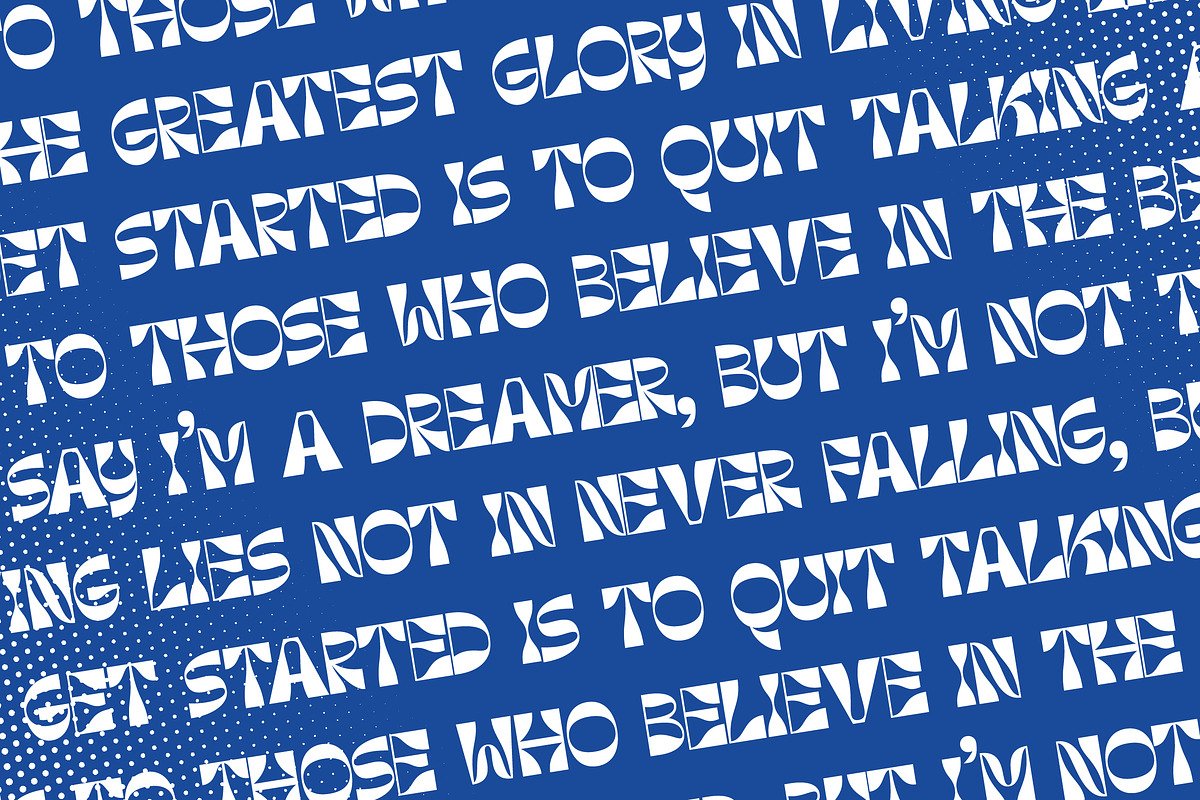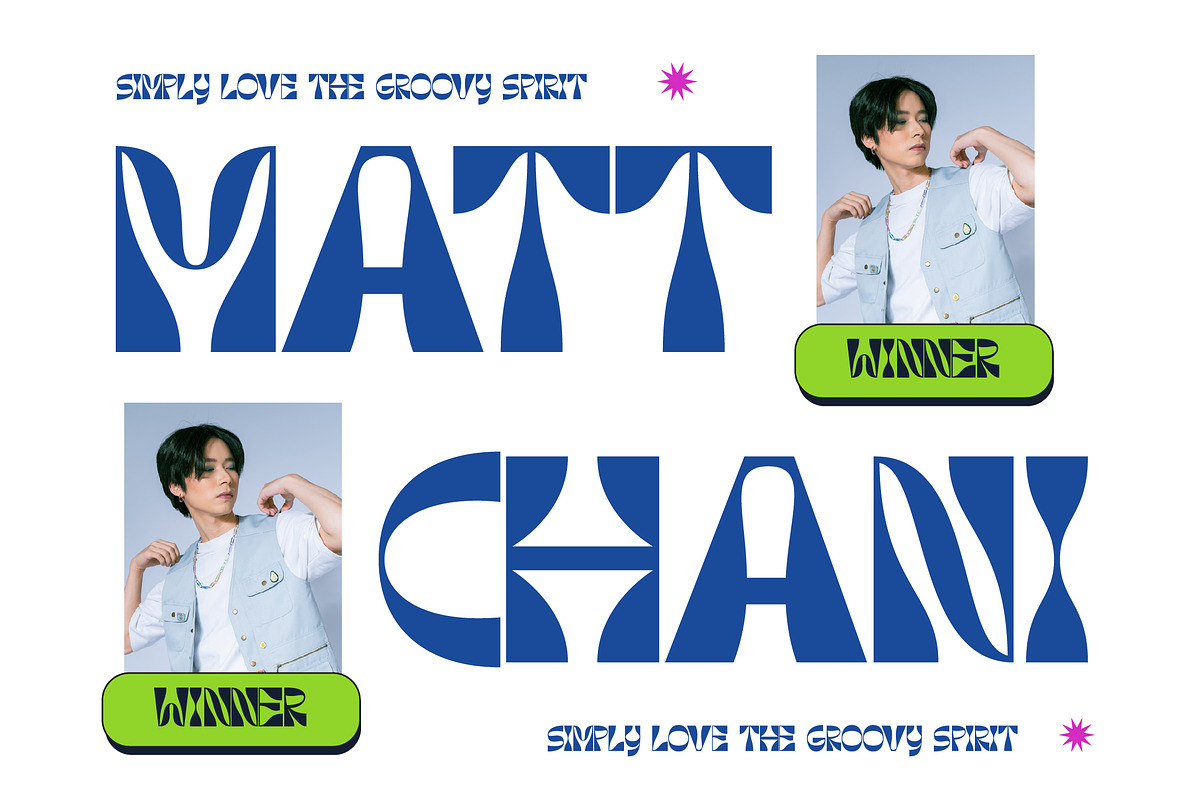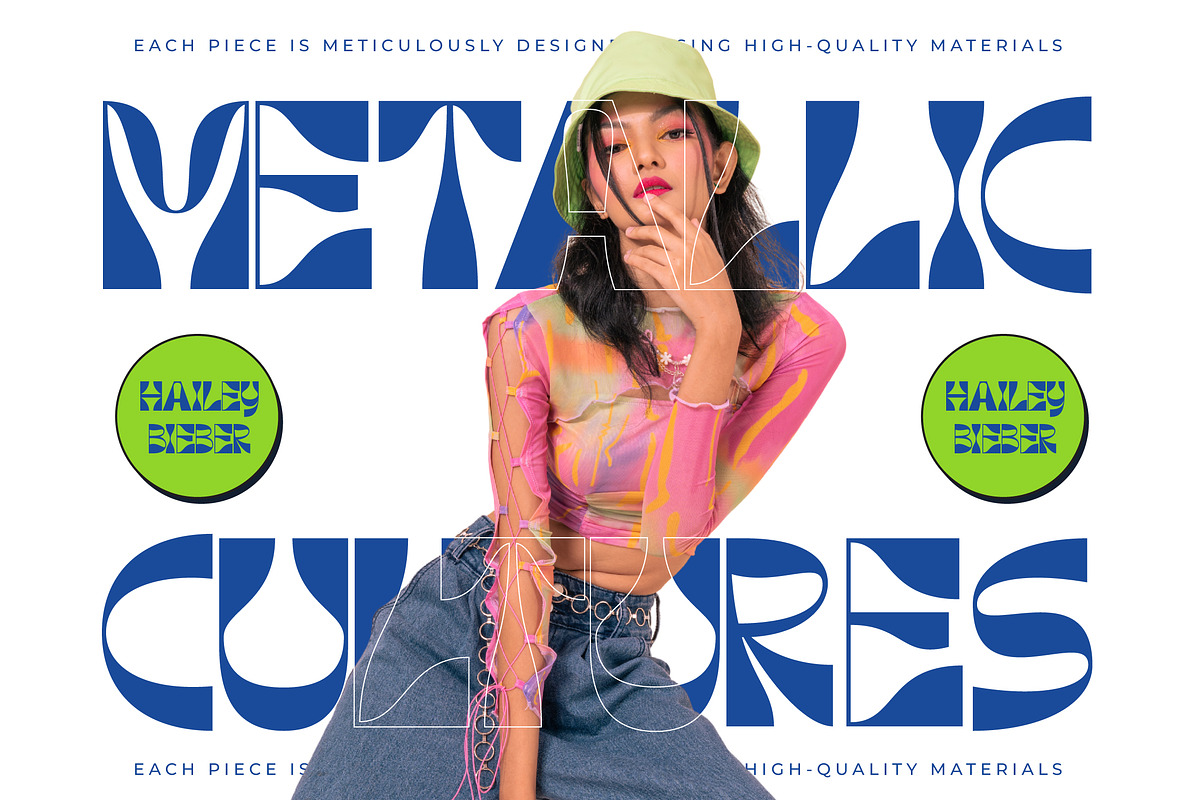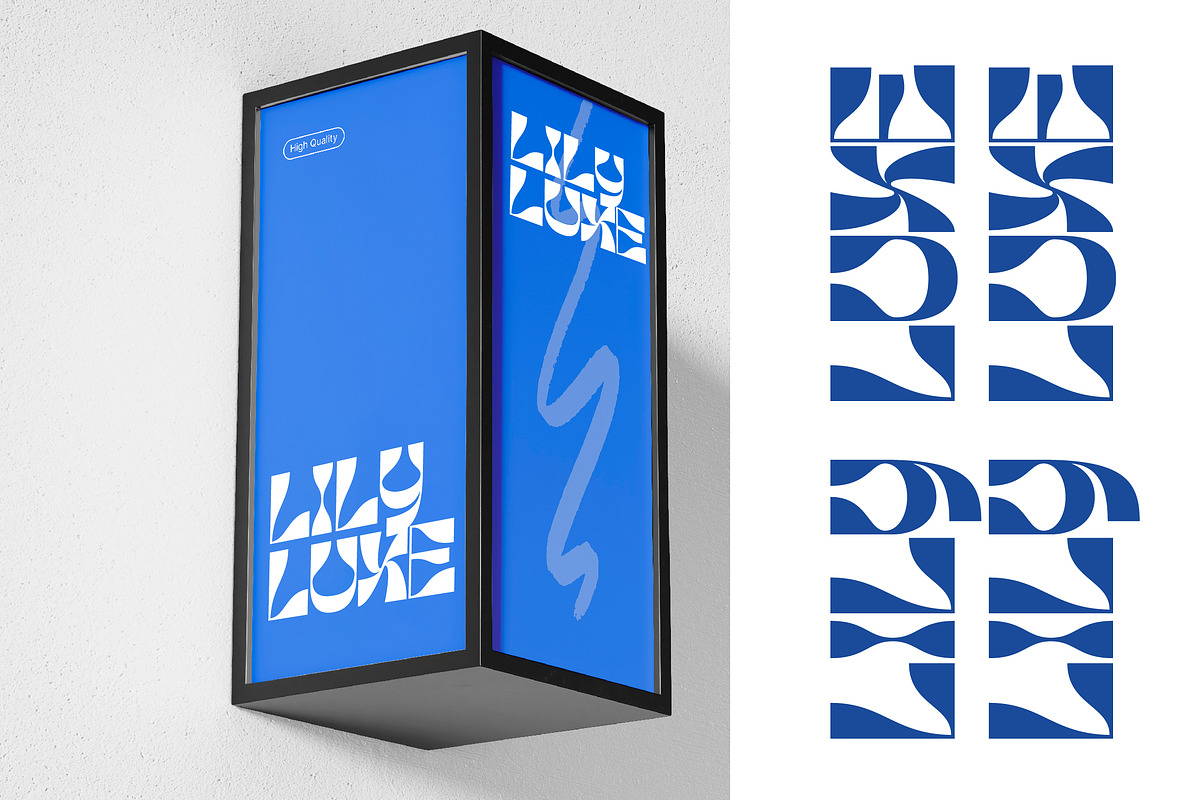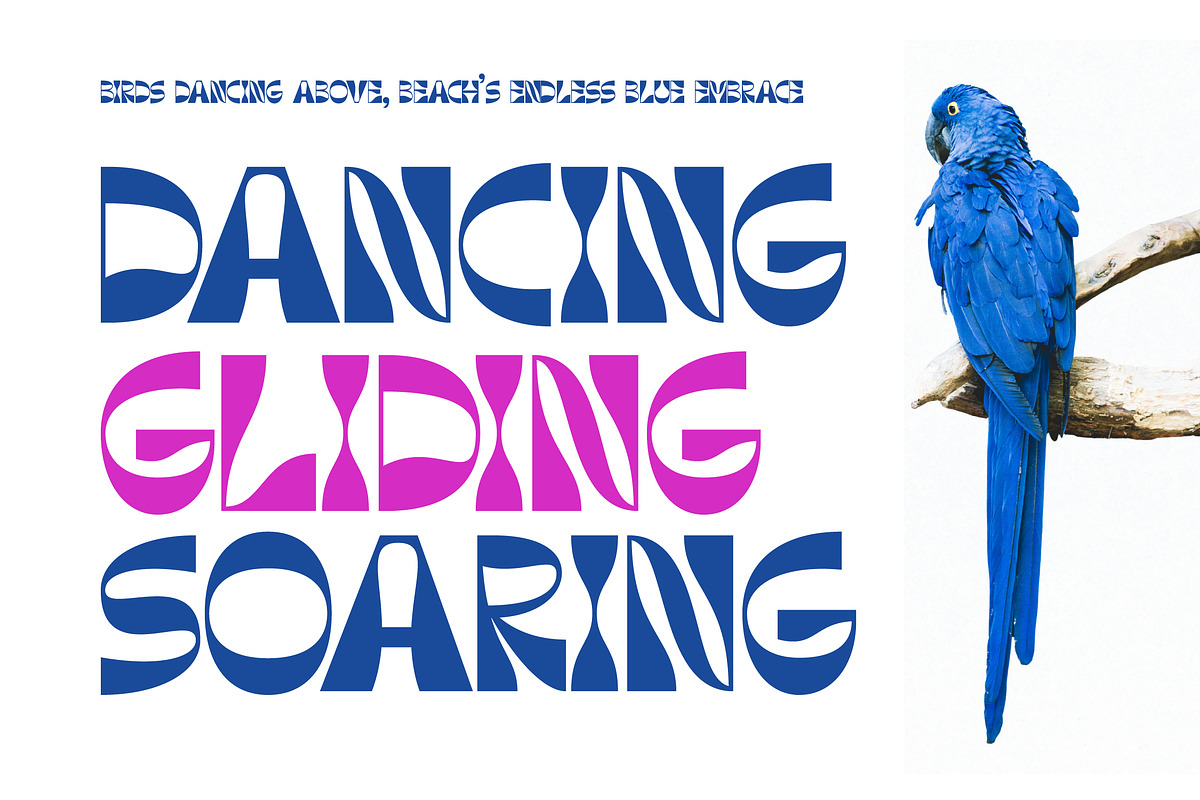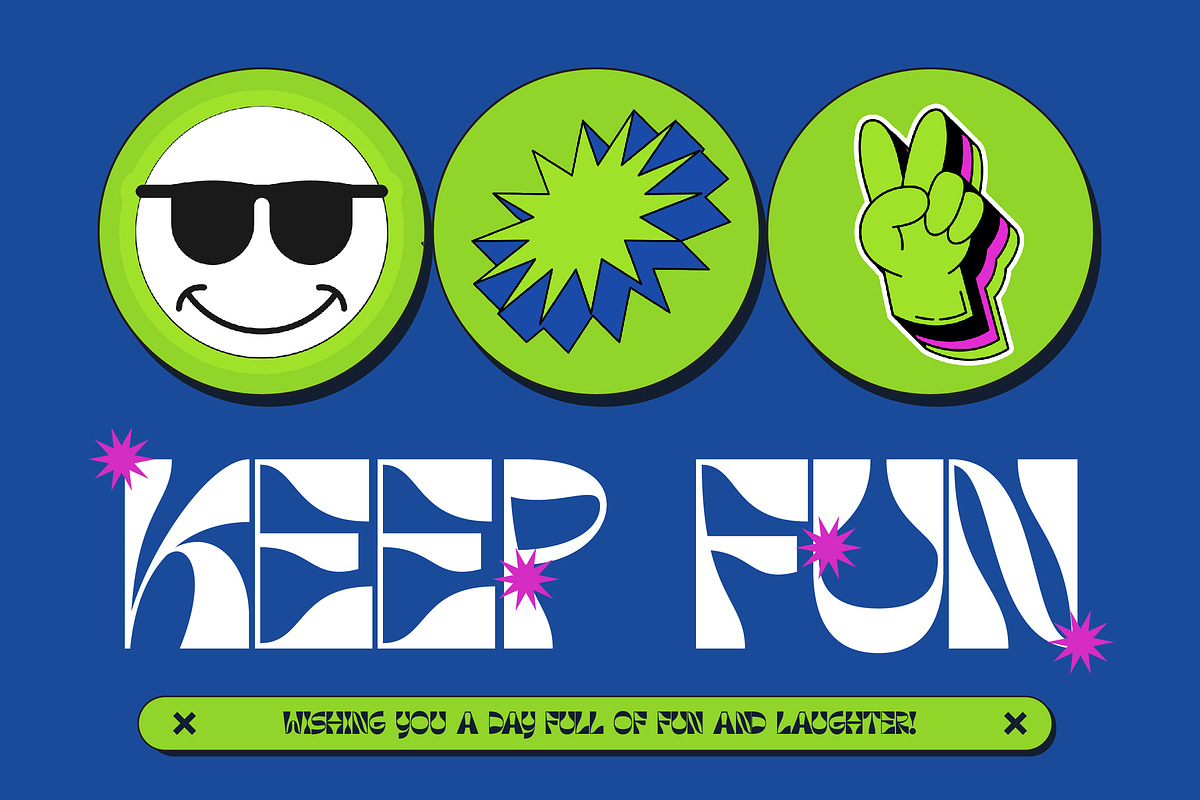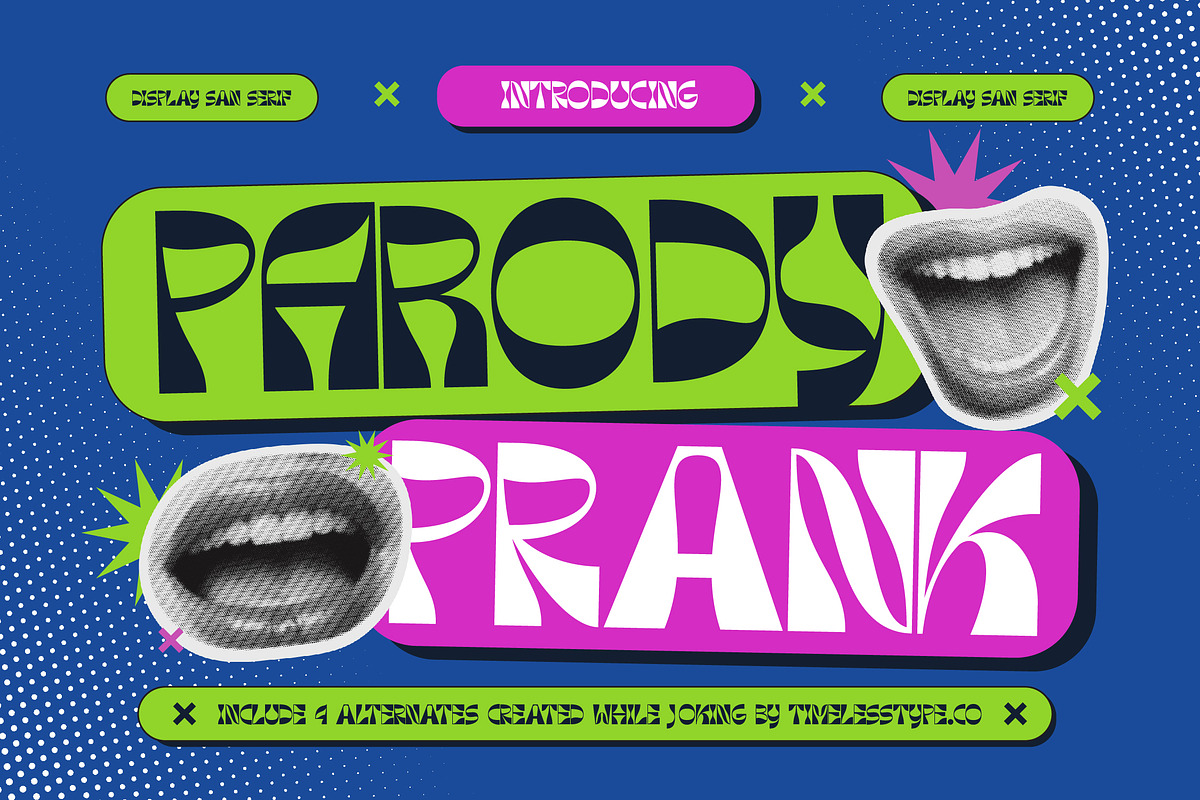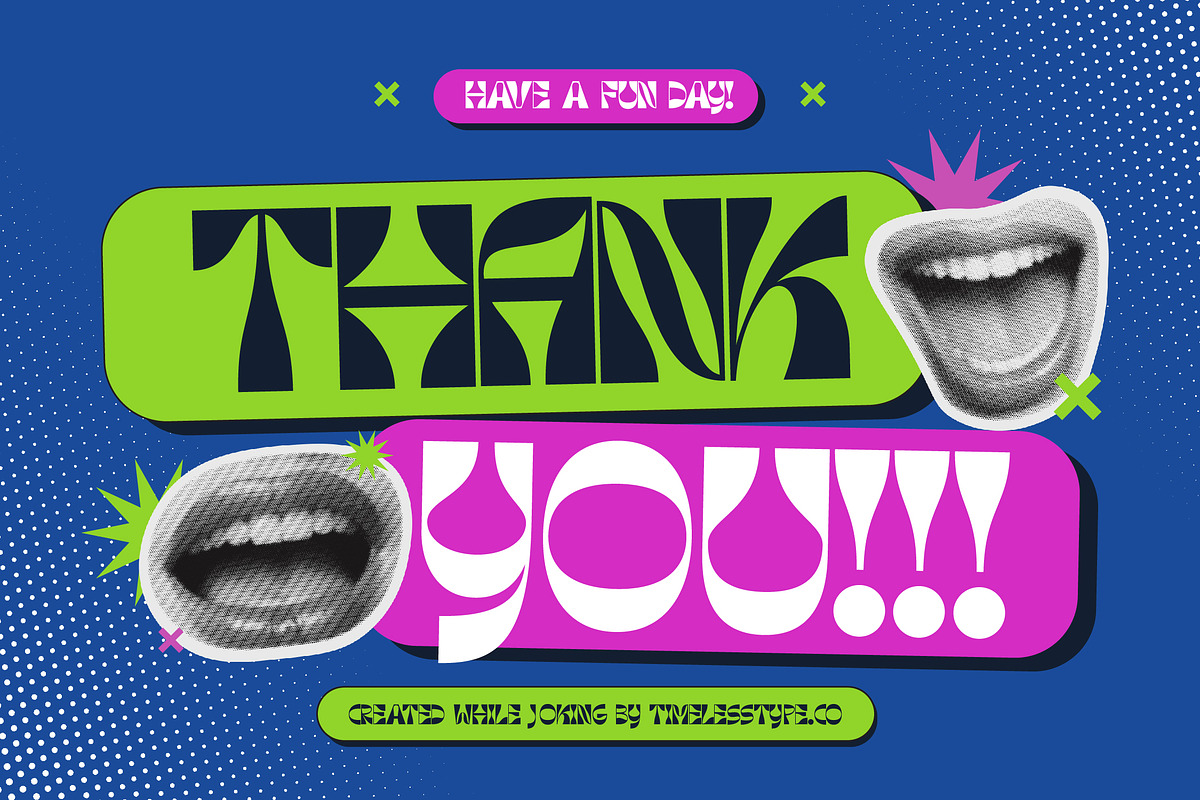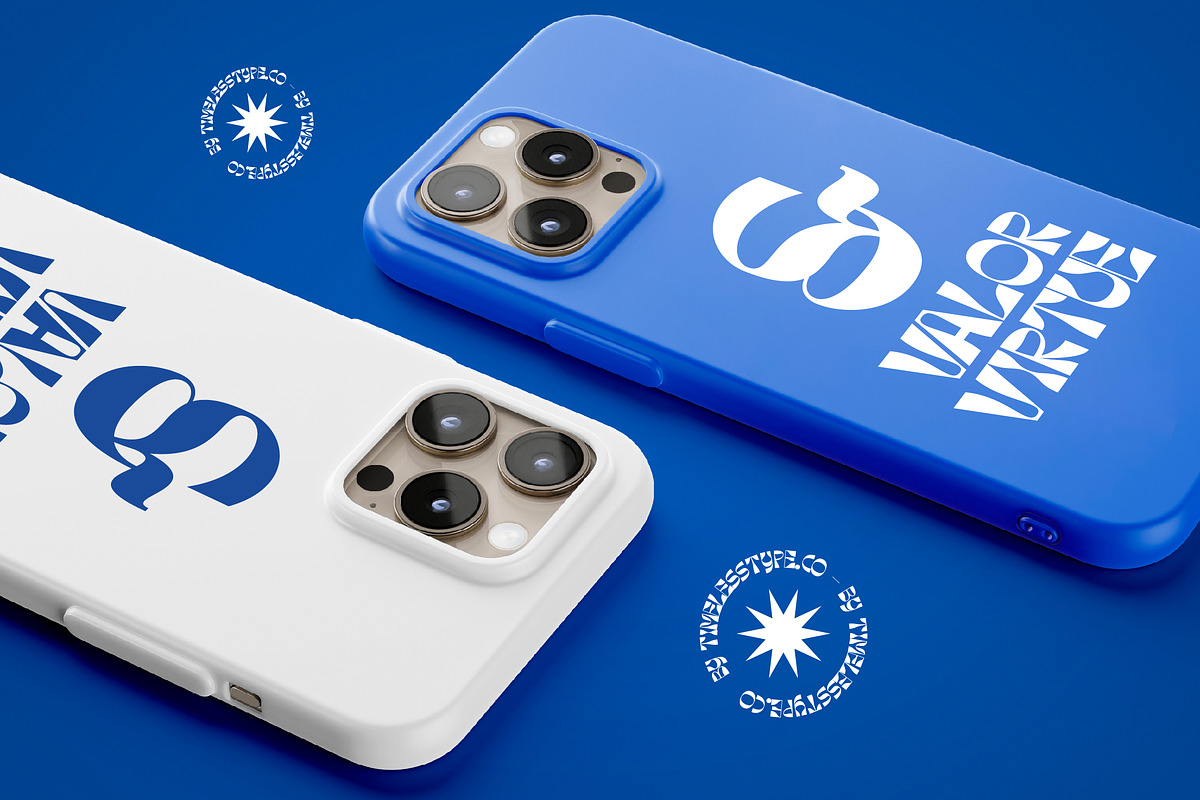
Parody Prank Psychedelic Font
Introducing Parody Prank, a vibrant explosion of visual energy designed to turn heads and challenge the status quo of conventional design. This typeface is a celebration of the unexpected, bringing a sense of rebellious joy to every project it touches.
Inspired by the fluid distortions of the psychedelic era and the gritty, playful nature of underground zine culture, the letterforms drip with personality. It captures that elusive moment where high-fashion aesthetics meet the raw, unpolished spirit of street art and contemporary pop culture.
With its liquid curves and exaggerated proportions, this modern serif display offers an unparalleled luxury typography experience while maintaining a sense of fun. Its high-contrast serif elements and quirky strokes make it an essential editorial font for creators seeking a massive branding impact that sticks in the mind.
Staying ahead of the modern serif trend, this typeface perfectly aligns with the current shift toward editorial display fonts that embrace imperfection. It thrives in the world of character-driven typography, making it the ideal choice for brands that want to communicate with a distinct and loud voice.
This versatile asset is perfect for striking logo design and bold branding initiatives that require a touch of the avant-garde. From immersive editorial layouts and experimental packaging to high-end wedding stationery or cutting-edge fashion lookbooks, it adapts seamlessly to any creative vision.
Technically refined for professional use, the font includes a rich set of ligatures and creative alternates to help you customize your layouts. It also features extensive multilingual support and a full suite of international characters, ensuring your message reaches a global audience with ease.
- Ligature Alternate 4